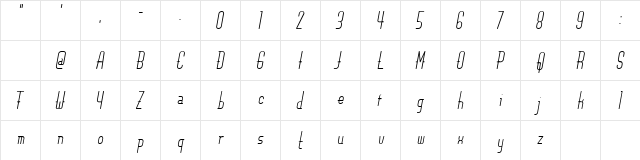
Century Light
Design Context for Century Typeface
Century offers clean, dependable letterforms without strong stylistic allegiance, making it a practical choice for designers who need flexibility. Its slender proportions lend an understated elegance to any composition.
Pro Tip: Pair Century with a font of contrasting weight or personality to build a more expressive typographic hierarchy.